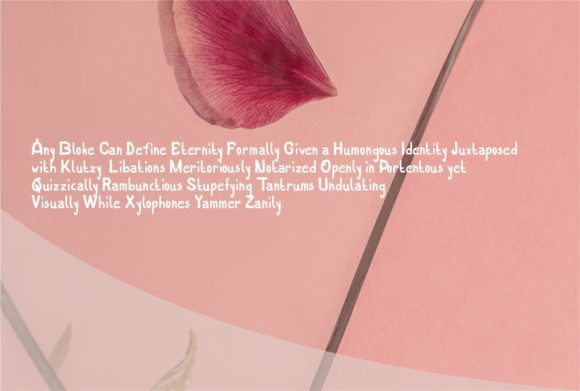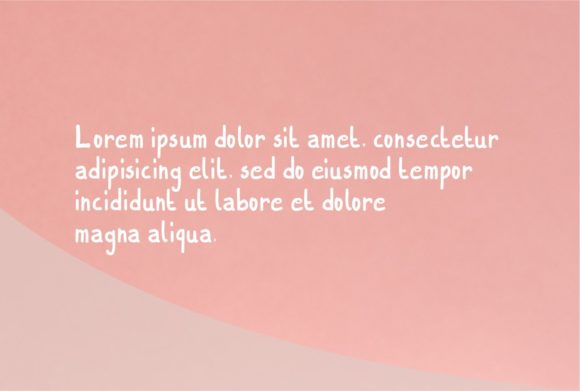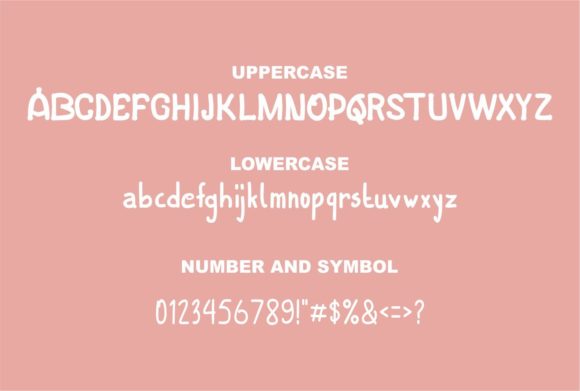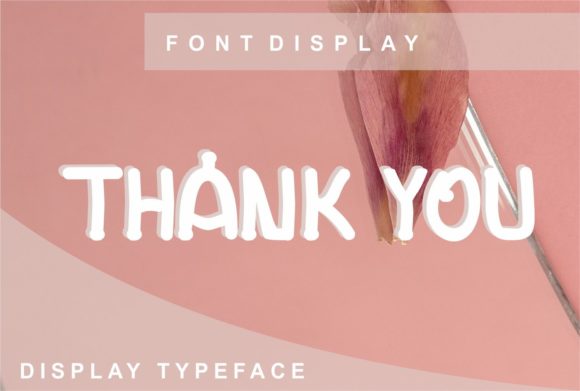
The Font That Saved My Design (and Probably Yours Too) – An In-Depth Look at Anyme Font
I still remember the design project that had me pulling my hair out. I was working on a branding campaign for a trendy new coffee shop, and I just couldn’t find the right font to capture their quirky yet sophisticated vibe. That’s when I stumbled upon Anyme Font, a clean and adaptable display font that became my design savior. In this article, I’ll share my experience with Anyme, its features, and how to make the most of it in your designs.
An Honest Review of Anyme Font
I’ve had the pleasure of working with Anyme Font on several projects, and here’s my honest review:
• ✨ Clean and Adaptable Design: Anyme Font is perfect for a wide range of design projects, from branding and advertising to packaging and digital media.
• ✅ Highly Legible: The font’s clear and concise design makes it easy to read, even at small sizes.
• 💡 Versatile: Anyme Font comes with a range of OpenType features, glyphs, and stylistic alternates, giving you plenty of creative options.
While Anyme Font is an excellent choice for many design projects, there are a few things to keep in mind:
• 🤔 Limited Serif Options: Anyme Font is a sans-serif font, which might not be suitable for projects that require a traditional serif look.
• ⚠️ Not Suitable for Body Text: While Anyme Font is highly legible, it’s not designed for body text. It’s best used for headlines, titles, and short paragraphs.
The Story Behind Anyme Font
Anyme Font was designed with the goal of creating a clean and adaptable display font that could be used in a wide range of design projects. The designer, inspired by modern typography trends, aimed to create a font that was both elegant and highly legible. With its versatile design and extensive range of OpenType features, Anyme Font has become a popular choice among designers and crafters.
What type of projects is Anyme Font best suited for? Anyme Font is perfect for branding, advertising, packaging, and digital media projects that require a clean and adaptable display font.
Can I use Anyme Font for body text? While Anyme Font is highly legible, it’s not designed for body text. It’s best used for headlines, titles, and short paragraphs.
Does Anyme Font come with OpenType features? Yes, Anyme Font comes with a range of OpenType features, including stylistic alternates, glyphs, and ligatures.